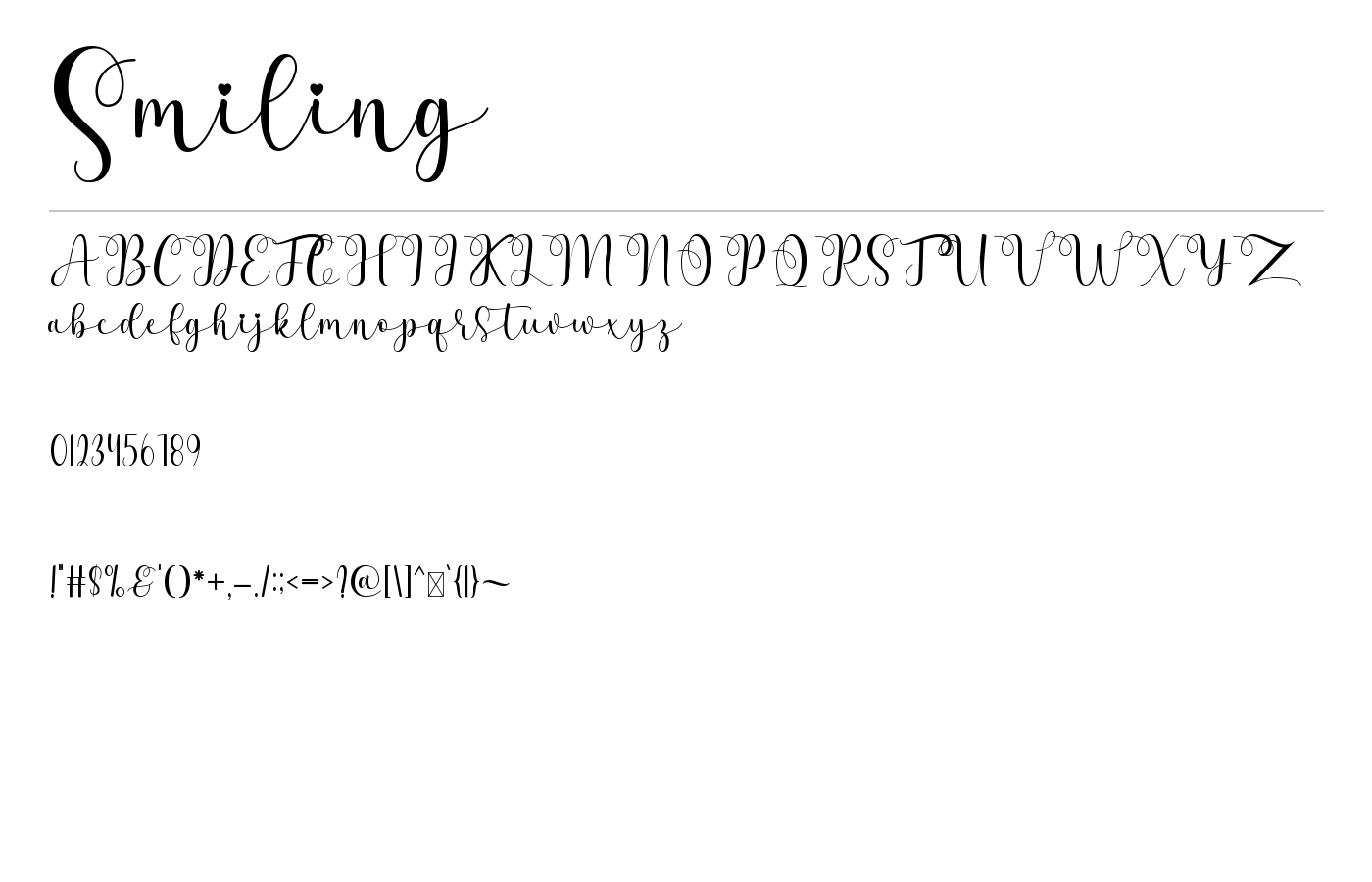
Smiling Font is an elegant, decorative script typeface characterized by its delicate, flowing strokes and playful swirls, giving it a friendly and charming personality. With its graceful uppercase letters featuring ornate loops and lowercase forms that maintain readability, it’s perfect for adding a whimsical, romantic touch to invitations, branding, and creative projects. This font works best in headlines or accents where a stylish and joyful impression is desired.
Smiling Font
About Smiling Font